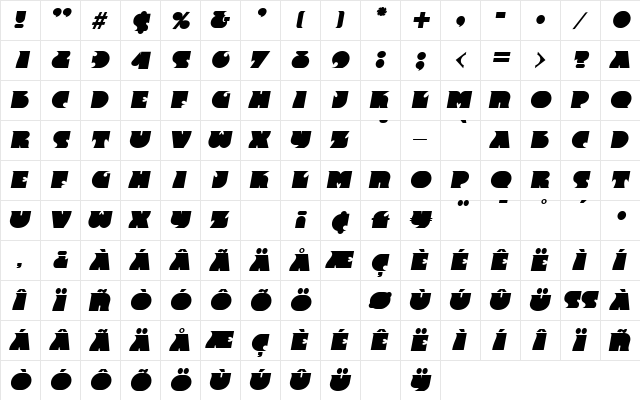
Frenzy Italic
Design Context for Frenzy Typeface
Frenzy is a composed and adaptable typeface that performs quietly and consistently across a wide range of design contexts. The slanted form adds forward momentum and visual energy.
Pro Tip: Use Frenzy for emphasis, pull quotes, and subheadings where its slanted energy can add rhythm to the layout.